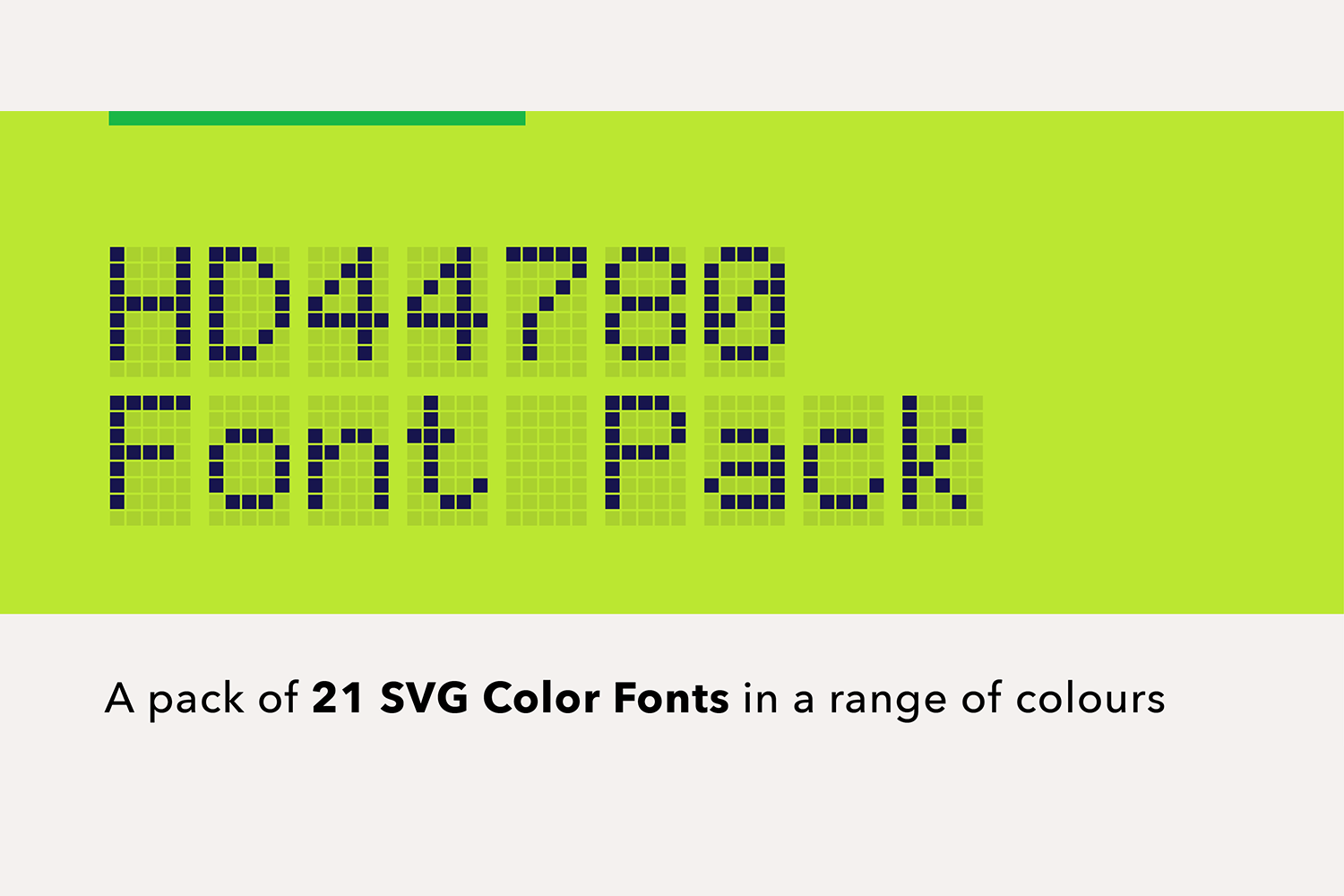
LCD HD44780 - Color Pixel Font
- Includes an OpenType Stylistic Set to easily switch between monospaced and proportional spacing.
SB Liquid HD44780 is a digitisation of the 5x8 pixel typeface used on many Liquid Crystal Display (LCD) panels, including the ubiquitous Hitachi HD44780.
This pack is intended to emulate the look of these LCD screens and contains 21 SVG Color Fonts in a range of colours, including two versions featuring transparency for layering over images or textured backgrounds.
This font contains 875 glyphs including many alternative characters. The font allows you to substitute the original monospaced characters for narrow or full width versions. It also contains full height alternative characters for accented characters.